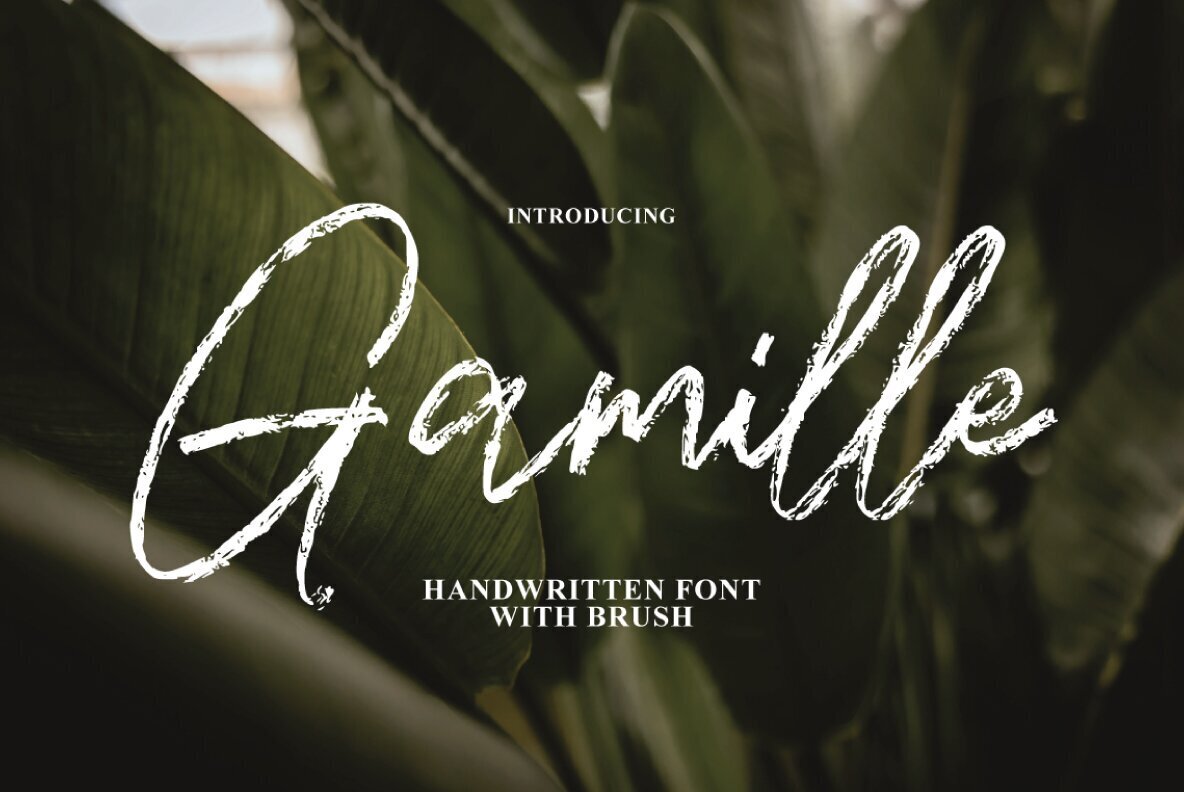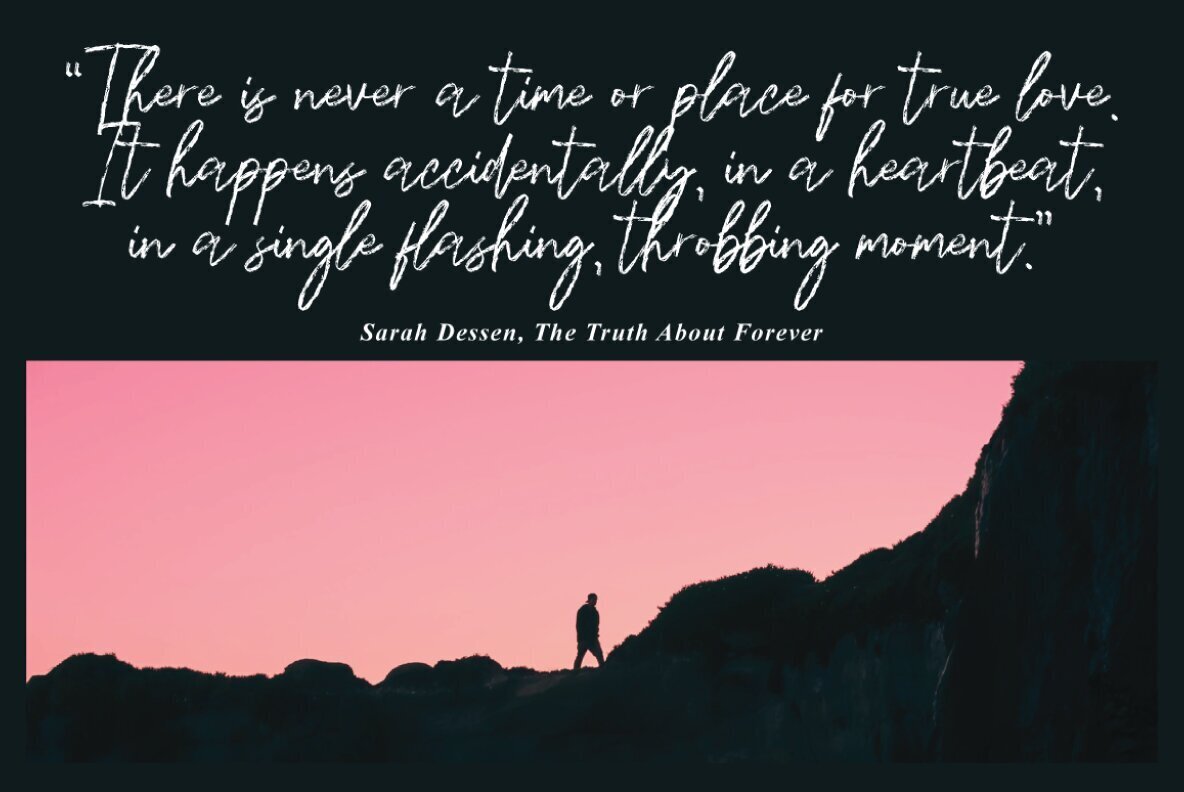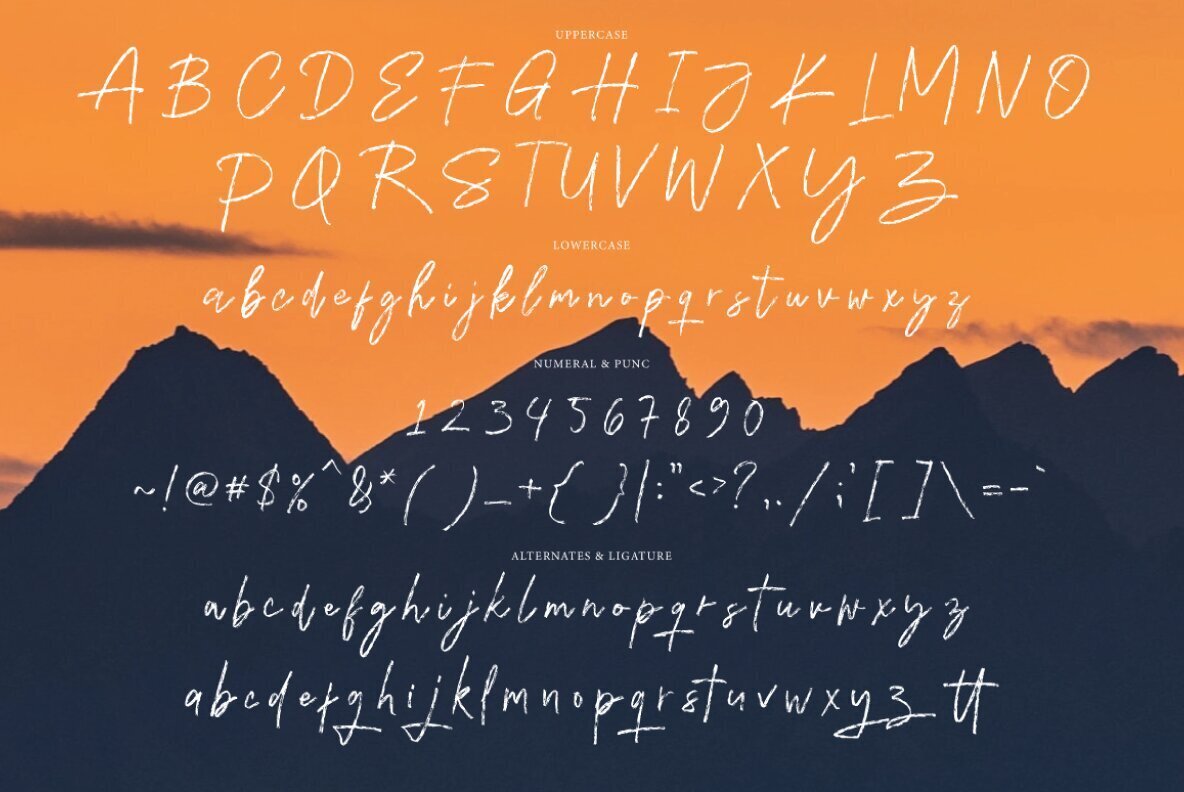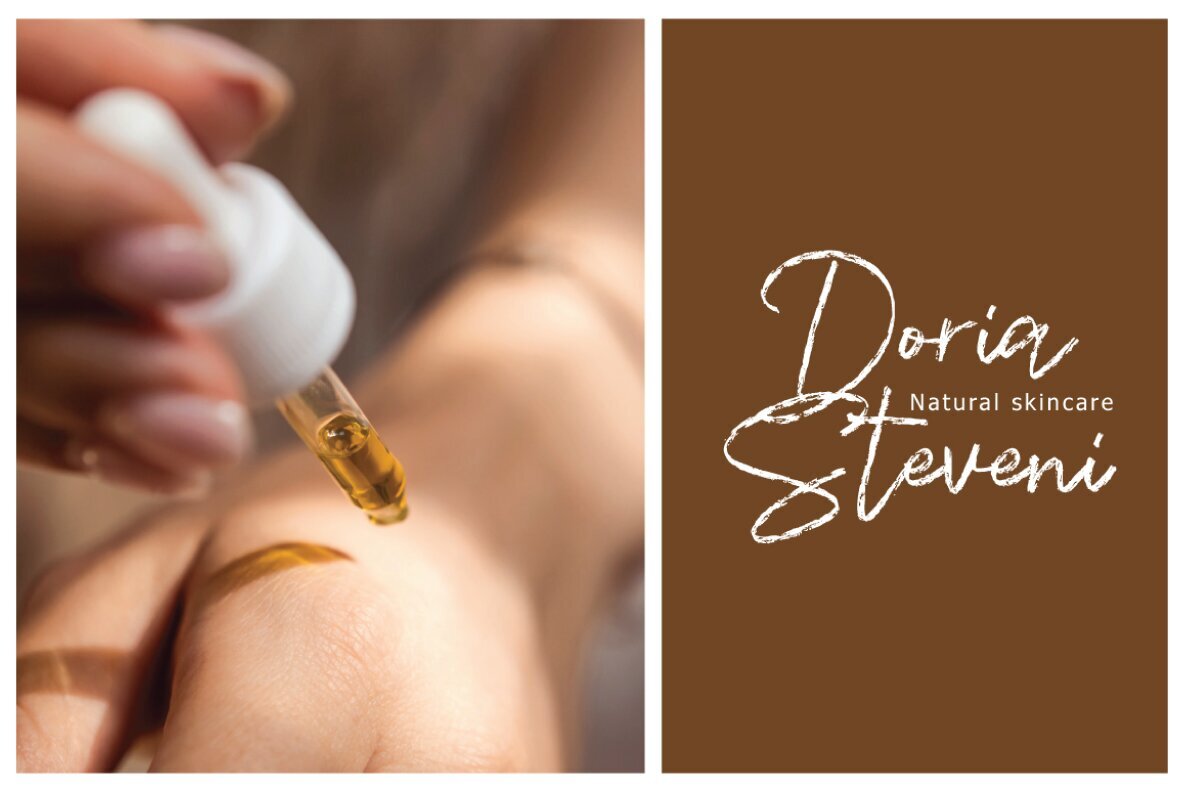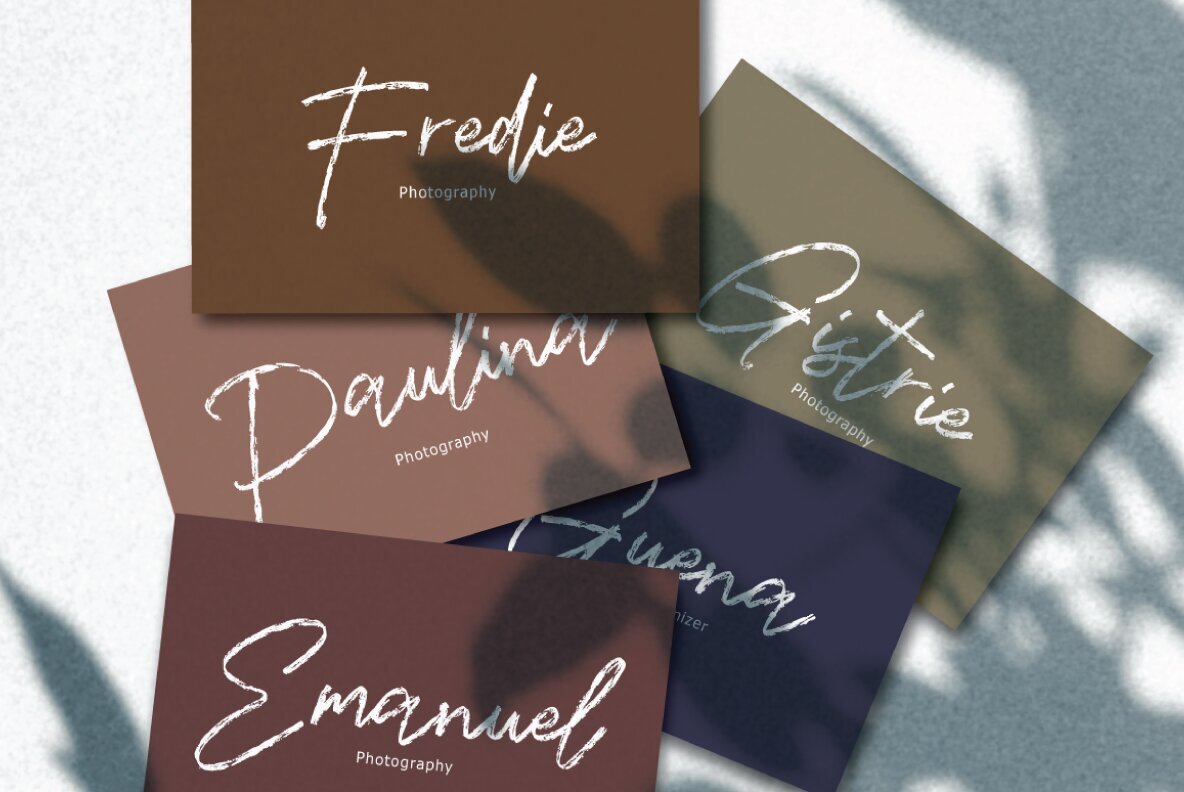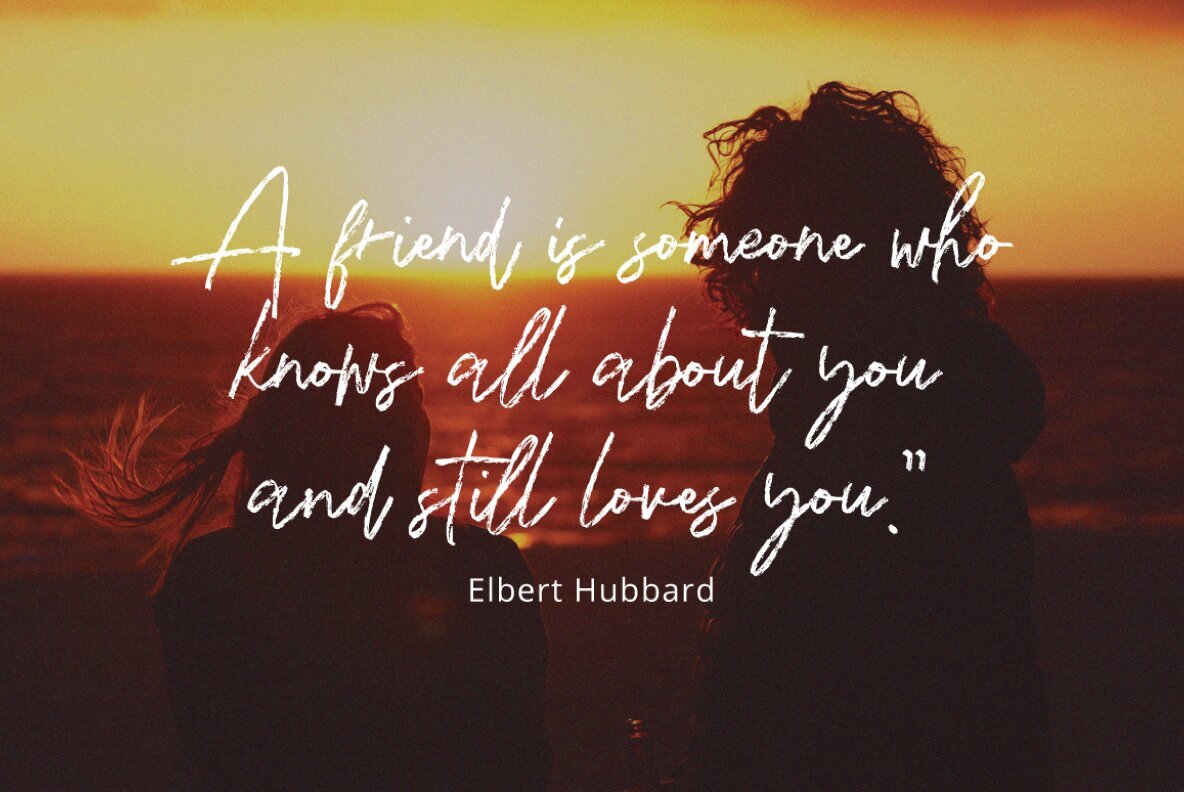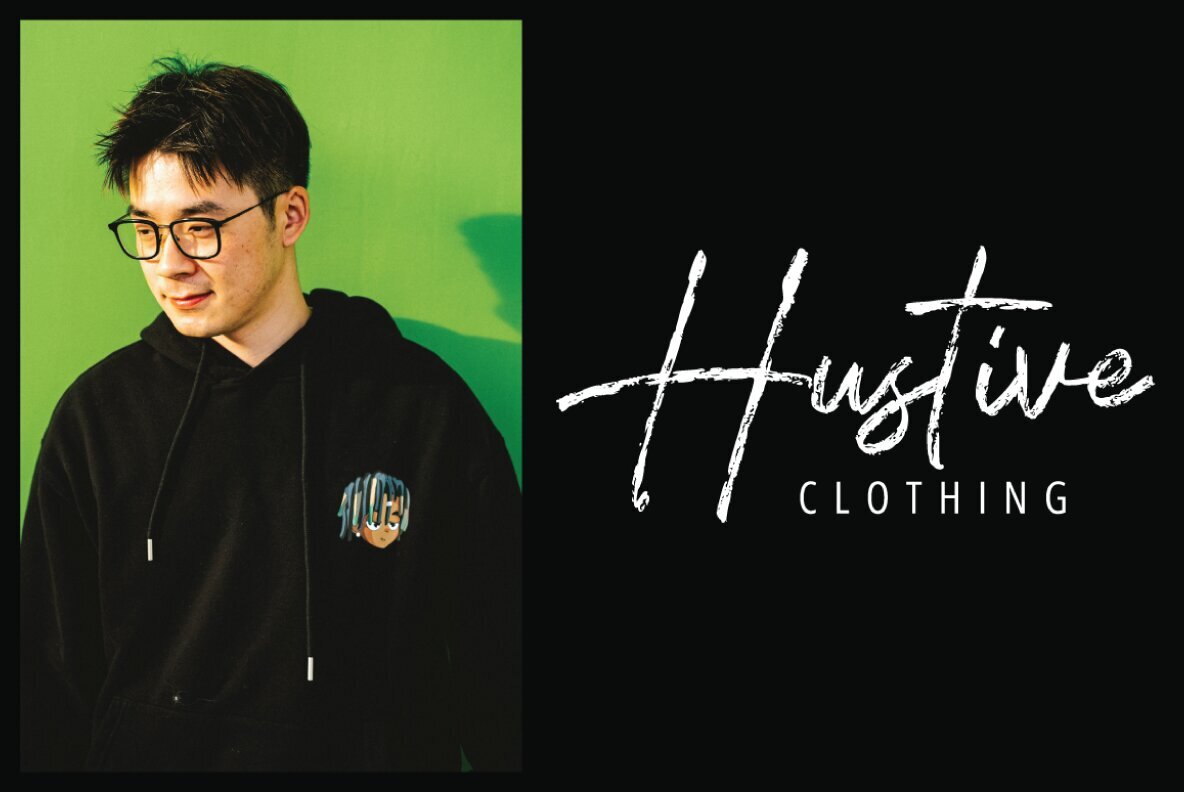
Gamille Font
Gamille Signature Brush Regular
Discover the Gamille Signature Brush, a font that gracefully combines handmade signature style with decorative characters and a lively dancing baseline. This font shines on a variety of projects, including greeting cards, branding materials, business cards, quotes, and posters, adding a touch of elegance to any design. Gamille offers seamless integration with OpenType-capable programs like Adobe Illustrator, Photoshop, InDesign, and Corel Draw. If you're working without OpenType support, fear not; use Font Book on Mac or Character Map on Windows to access alternate glyphs effortlessly. Enrich your design projects with this versatile and sophisticated typeface.Gamille Signature Brush Font